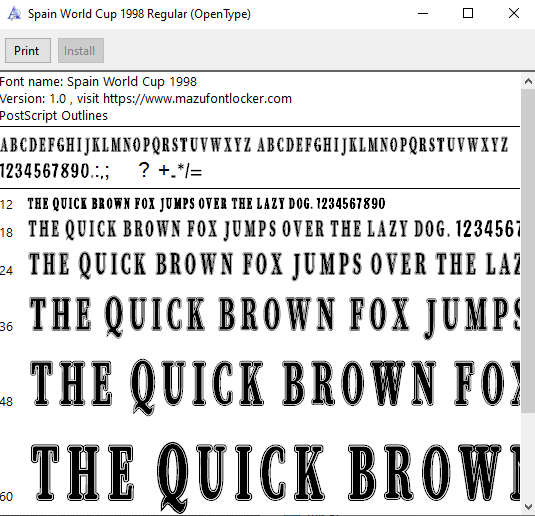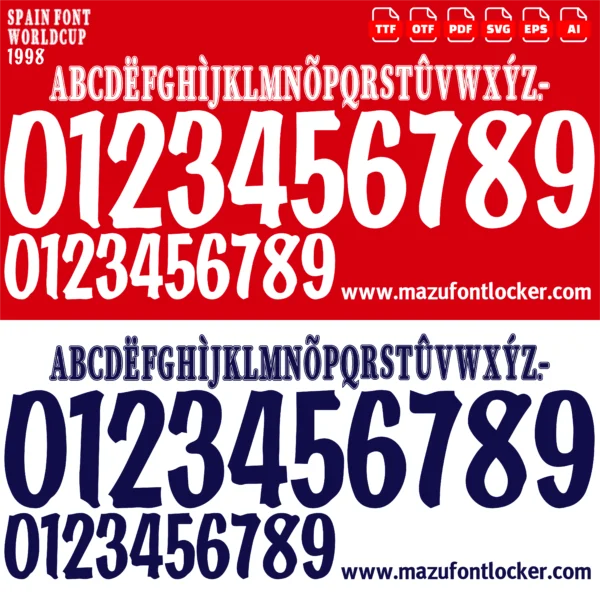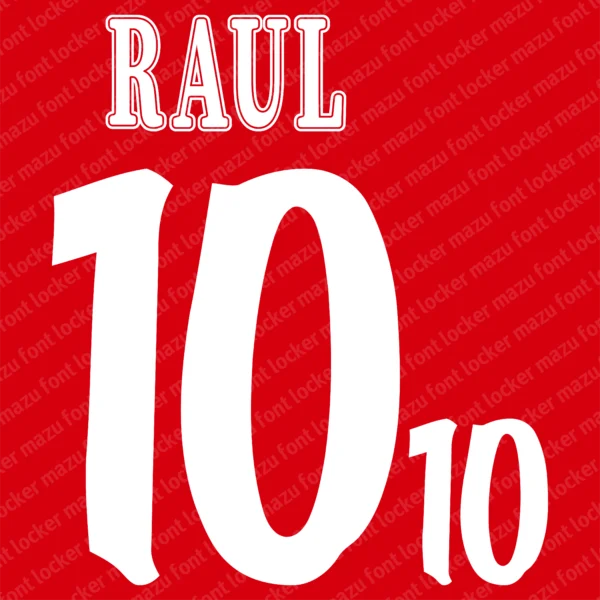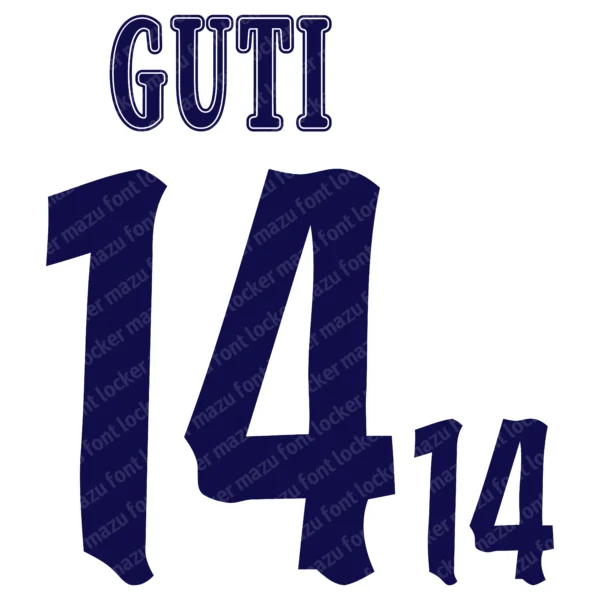
Spain World Cup 1998 Font Vector – Epic La Roja Masterpiece
This premium font captures the commanding, majestic, iron-willed war-machine lettering that embodies the unstoppable La Roja spirit — delivering raw Spanish fire, explosive national pride, unbreakable resilience, tactical dominance, and legendary warrior grit that made the world tremble.
Spain World Cup 1998 Font Vector – Authentic La Roja Typeface
The Spain World Cup 1998 Font Vector is a premium typeface that accurately recreates the official match lettering worn by the Spain national team during the 1998 FIFA World Cup campaign. This high-quality vector font kit captures the bold, classic, and passionate typography that represents the pride, passion, and rich football heritage of La Roja.
Designed for professional designers and passionate Spain fans, the Spain World Cup 1998 Font Vector delivers perfect authenticity for creating realistic jersey mockups, fan merchandise, matchday posters, social media graphics, and Spanish football content. It pairs beautifully with the iconic red and yellow kit featuring the famous Spain crest.
This font stands out because of its sharp vector precision and strong national identity. Every letter and number is crafted to match the exact style used on the players’ shirts during the 1998 World Cup campaign. Whether you are making realistic kit templates or exciting La Roja content, the Spain World Cup 1998 Font Vector gives your designs that authentic Spain look.
The letterforms in the Spain World Cup 1998 Font Vector are tall, bold, and highly readable. The strokes have a strong, clean weight with excellent edge definition that looks powerful on the back of jerseys while maintaining classic Spanish spirit and 90s football elegance.
• Full uppercase A–Z and numbers 0–9 in authentic Spain World Cup 1998 style
• Create highly realistic Spain World Cup 1998 home and away jersey mockups with accurate lettering
• Produce custom Spain merchandise with the 1998 aesthetic